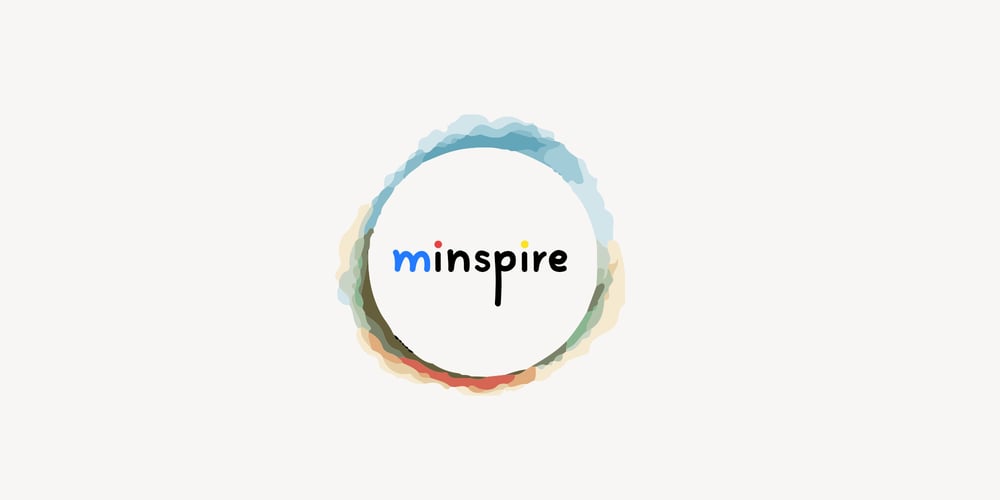
Minspire Font Family was designed by Mehras Irani and published by Mehras Types. Minspire contains 12 styles and family package options. Minspire, inspired by my own handwriting. Originally started as part of my “Inspire” project during the pandemic. what was originally a personal challenge to keep my creativity level in difficult times, became a passion to learn making Typefaces professionally. (I don’t think there is any school in the world that teaches you that properly).The name is a combination of my initials Mehras Irani, combined with the word inspire.Unicodes included in this family:Basic LatinLatin-1 SupplementLatin Extended-A*This is my first font/typeface design. If there are any mistakes you notice. please contact me and I will make an update to the family.